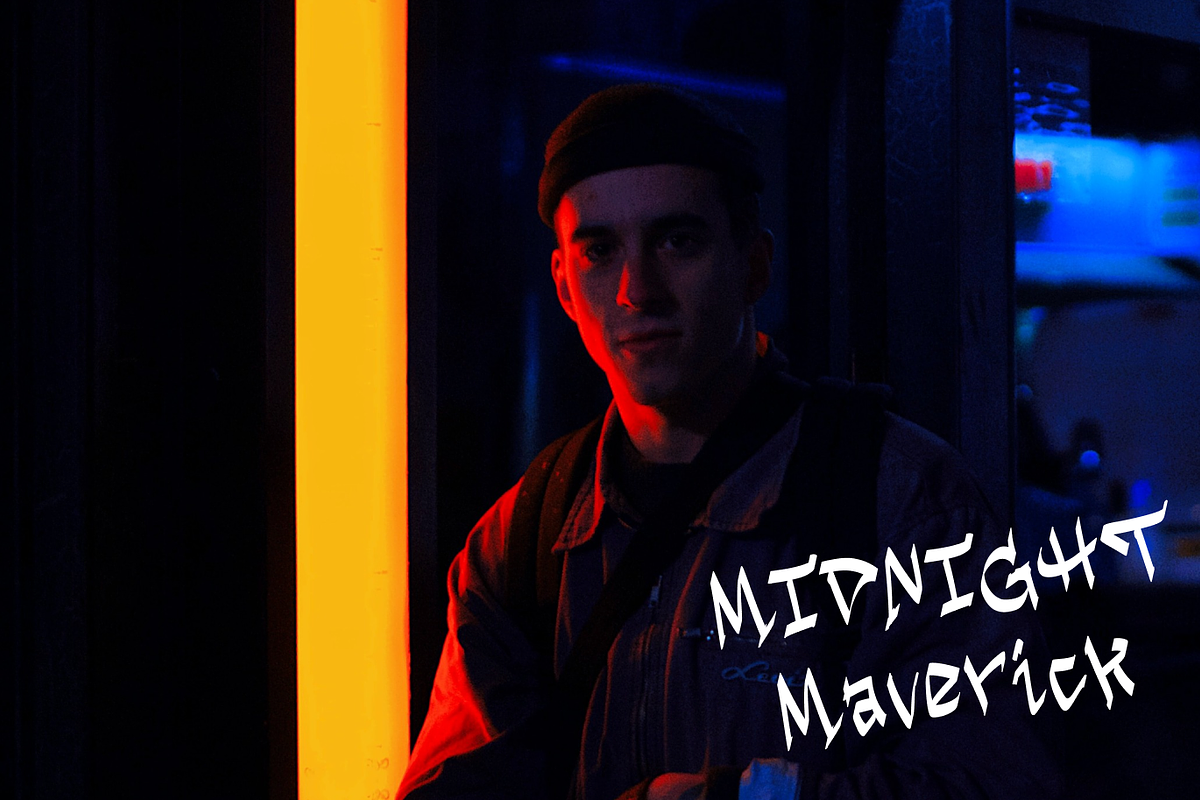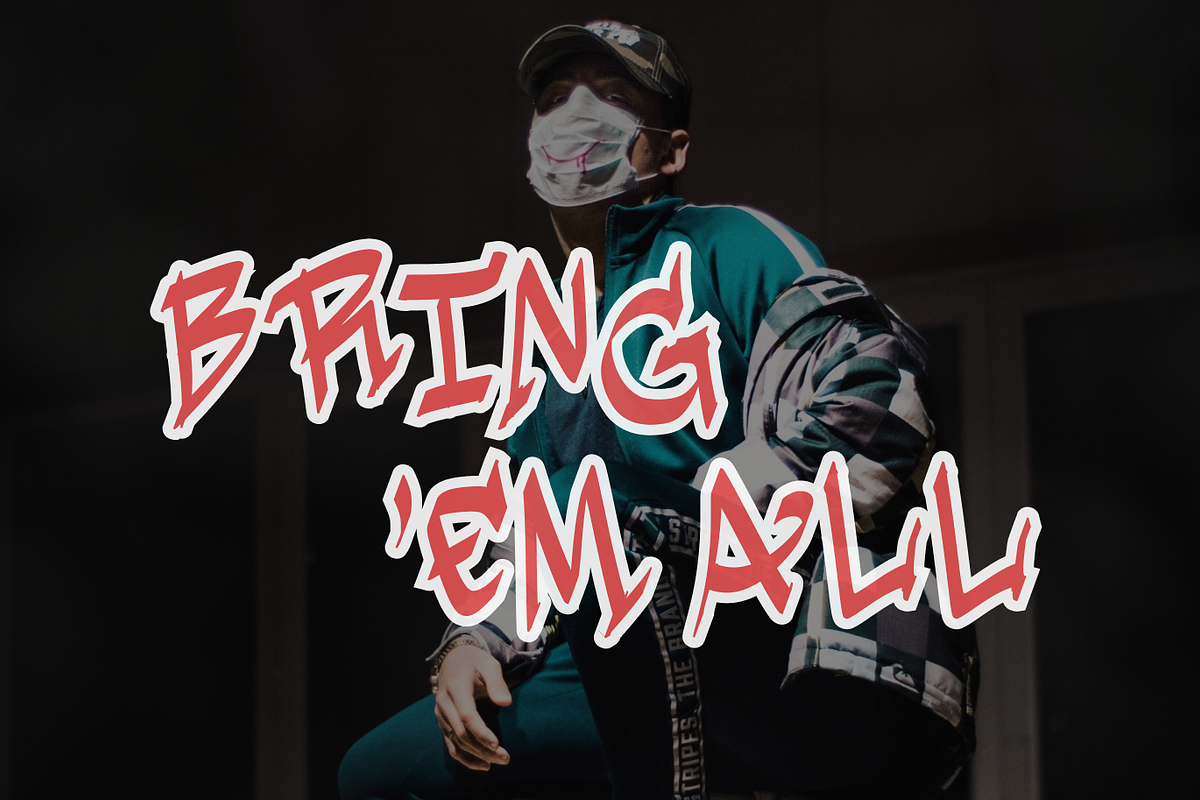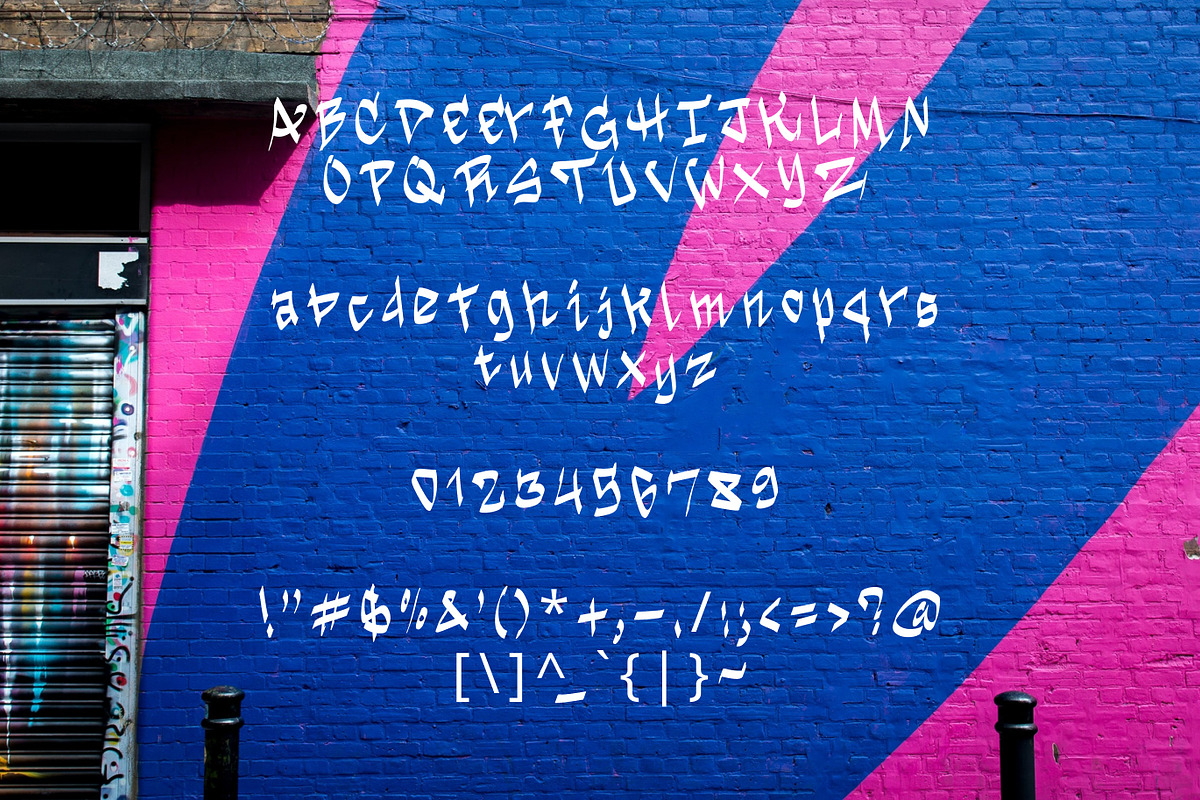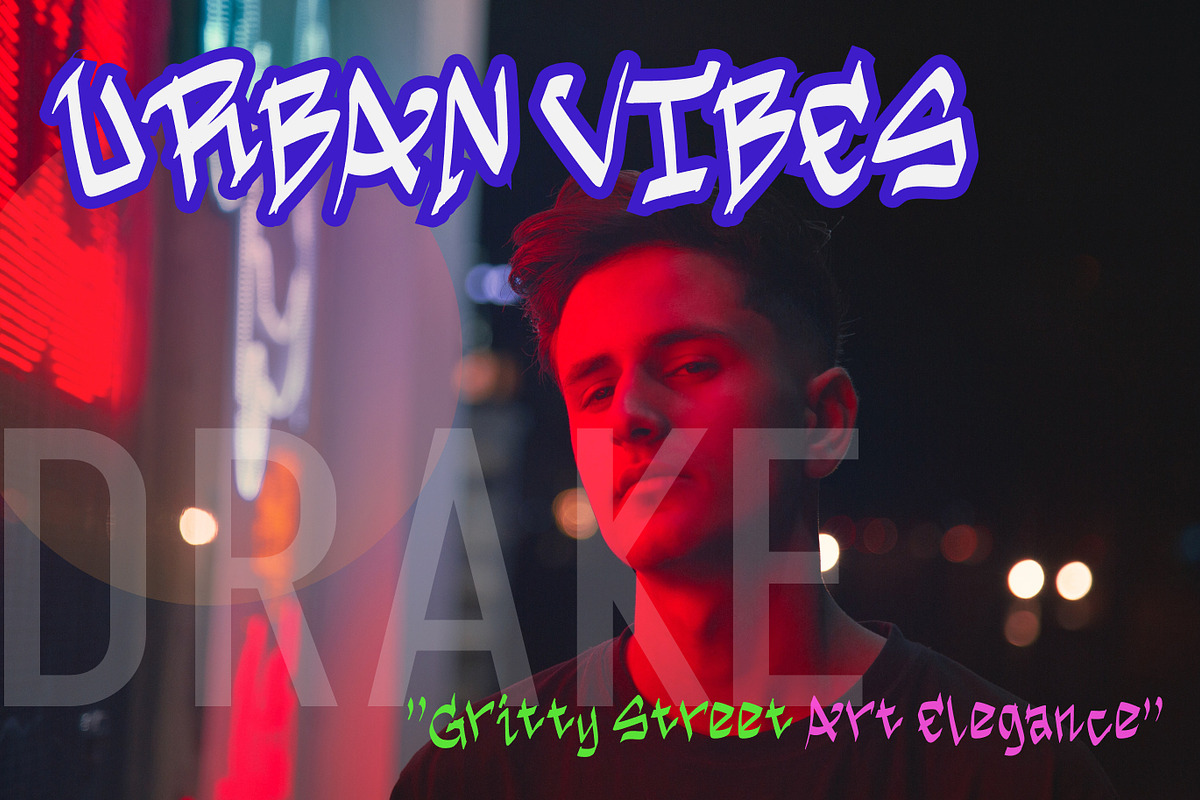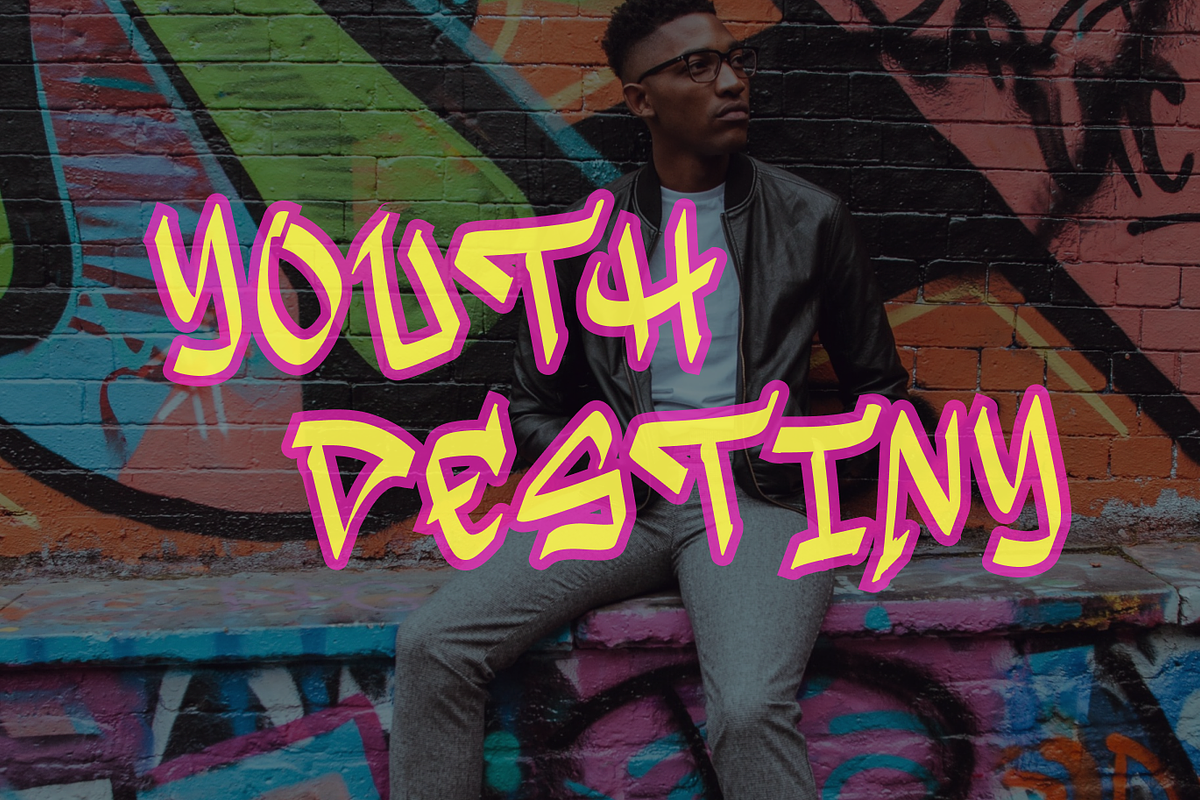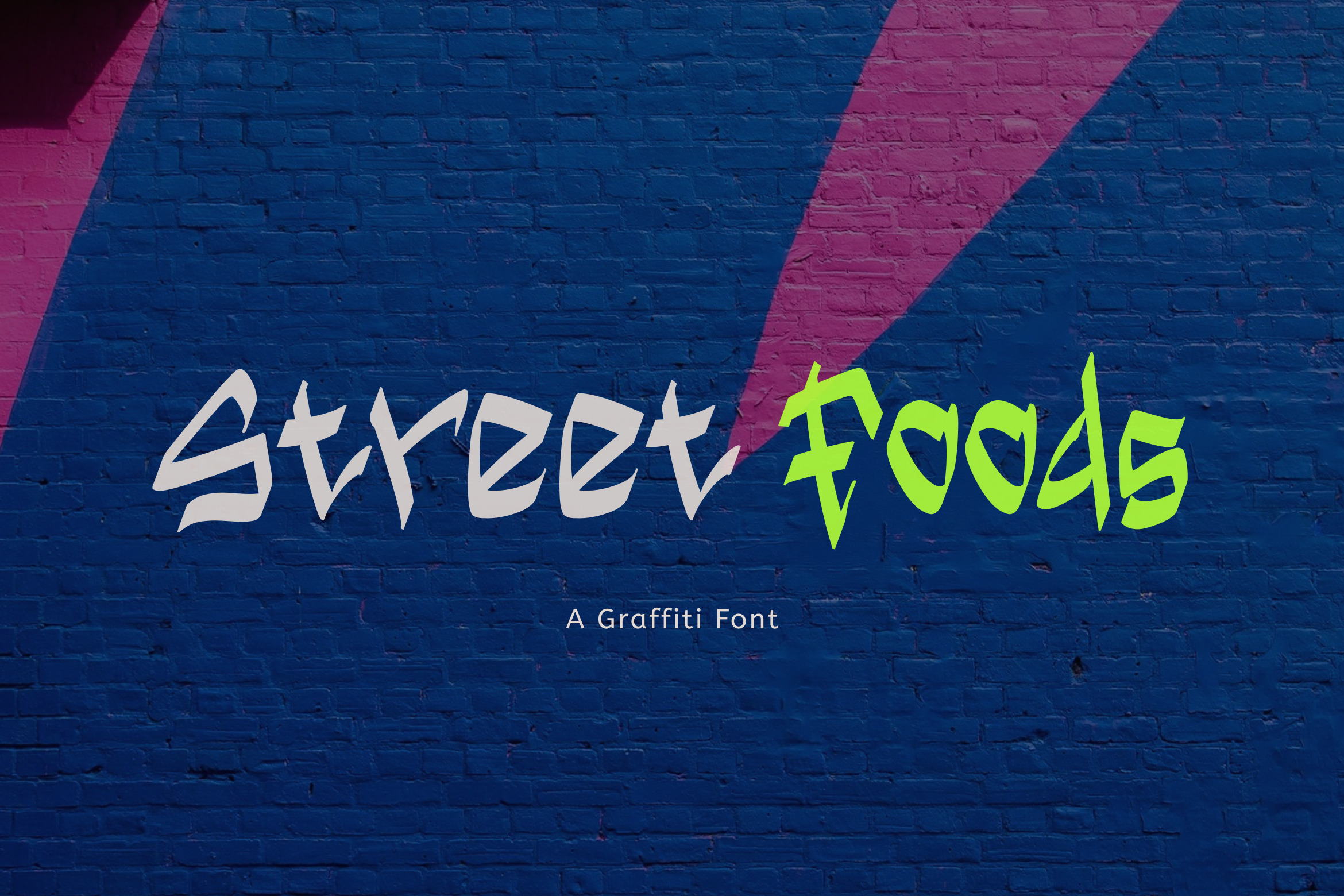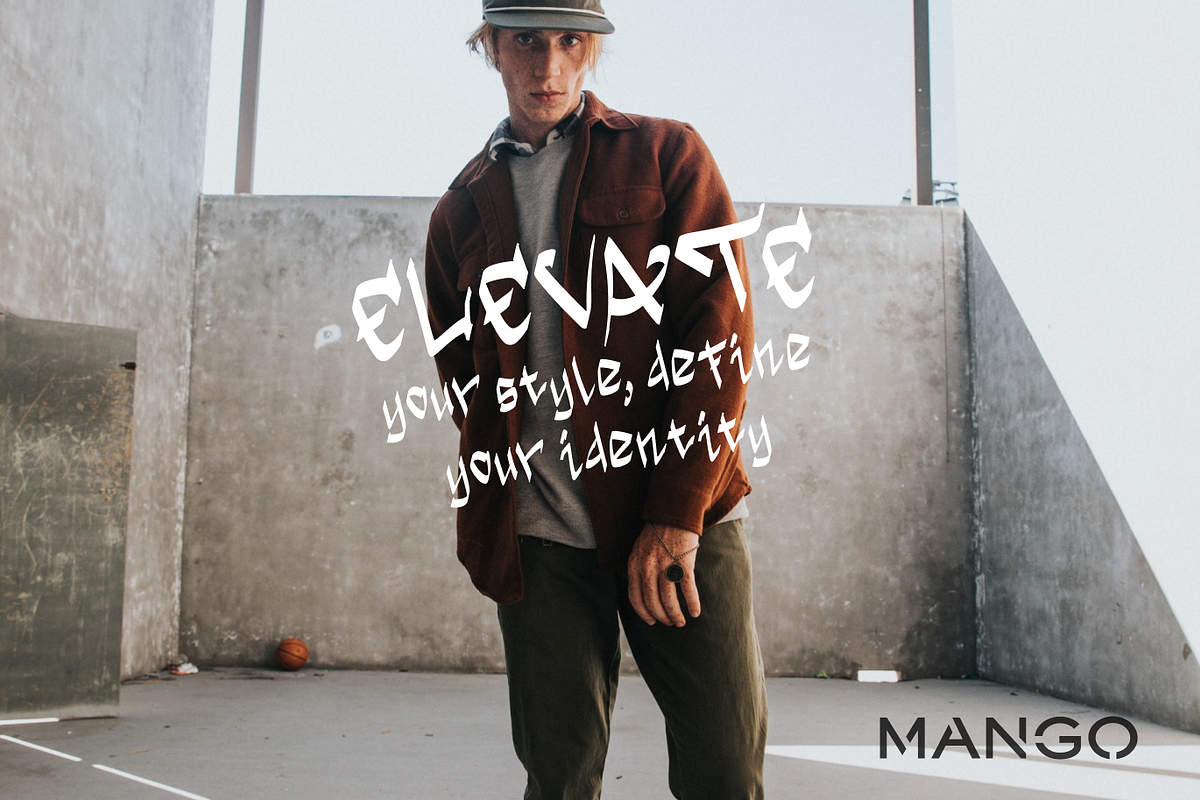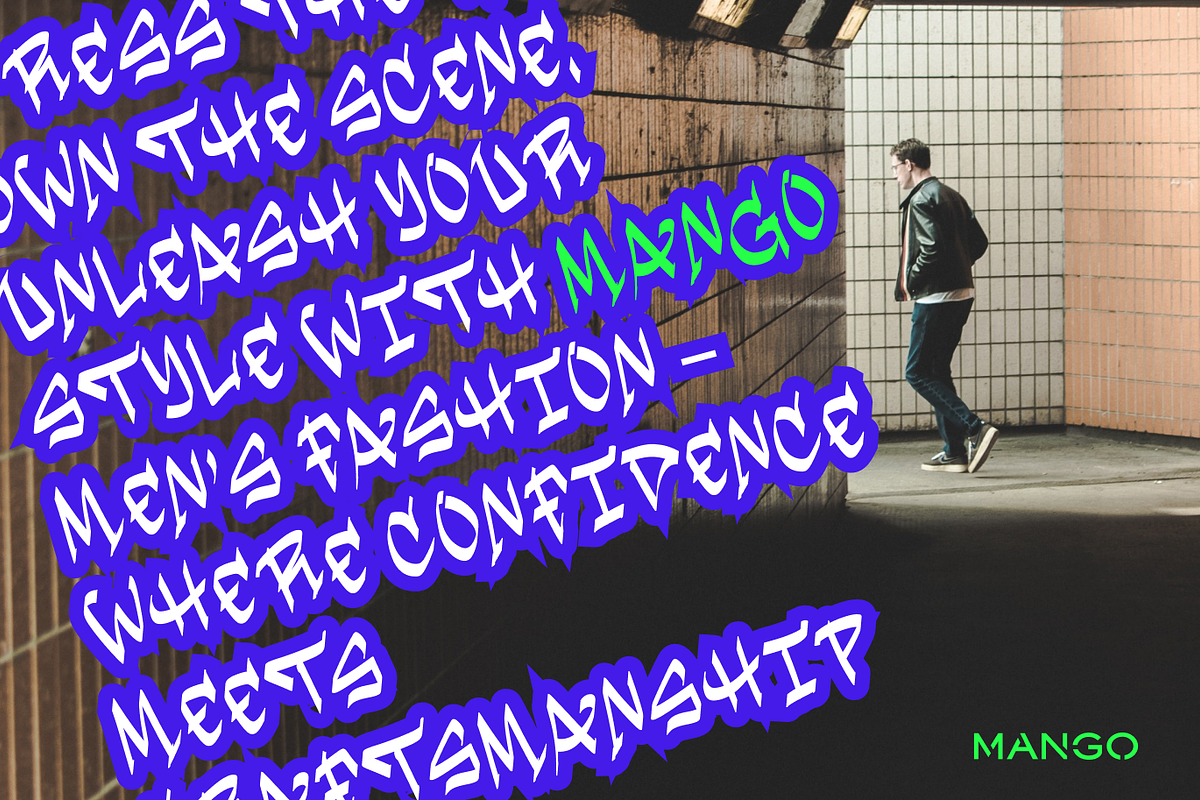
Street Foods - Graffiti Font
Street Foods is a handwritten font for all your design needs. Suitable for street image products, men's fashion, teens, fun, rebel, dark, heroes, strong, indie scene, youth, foods, art and design, street art, graffiti style, and localization characteristic design images. Suitable for t-shirts, tote bags, postcards, social media, billboards, fashion, foods, posters, stickers, labels, etc.